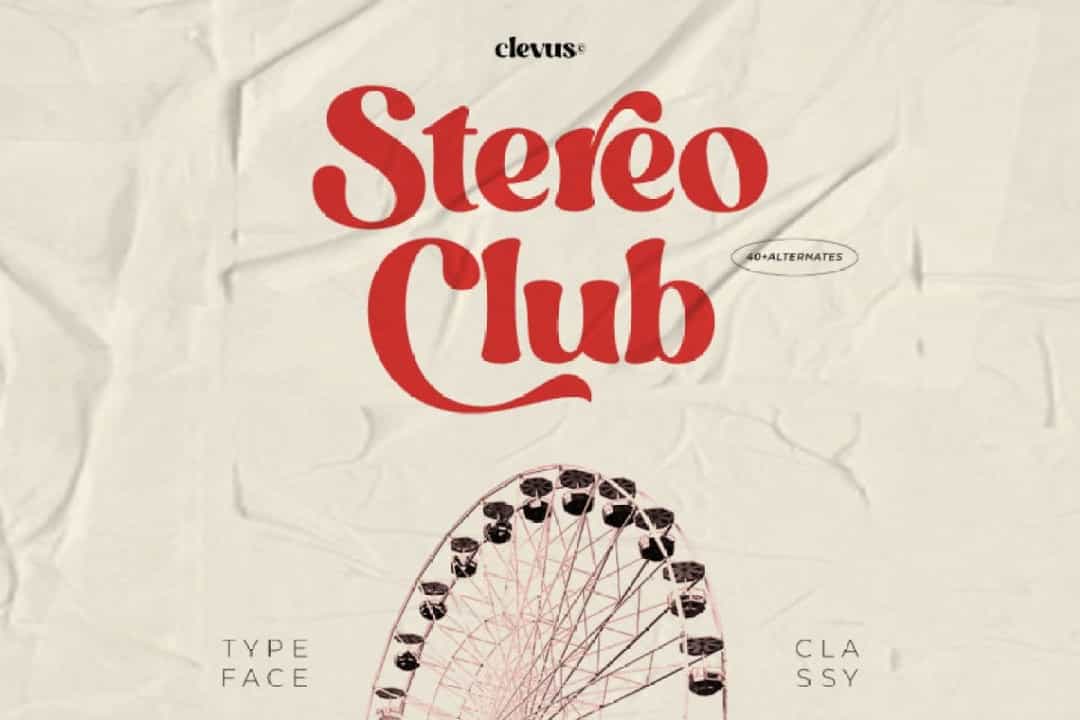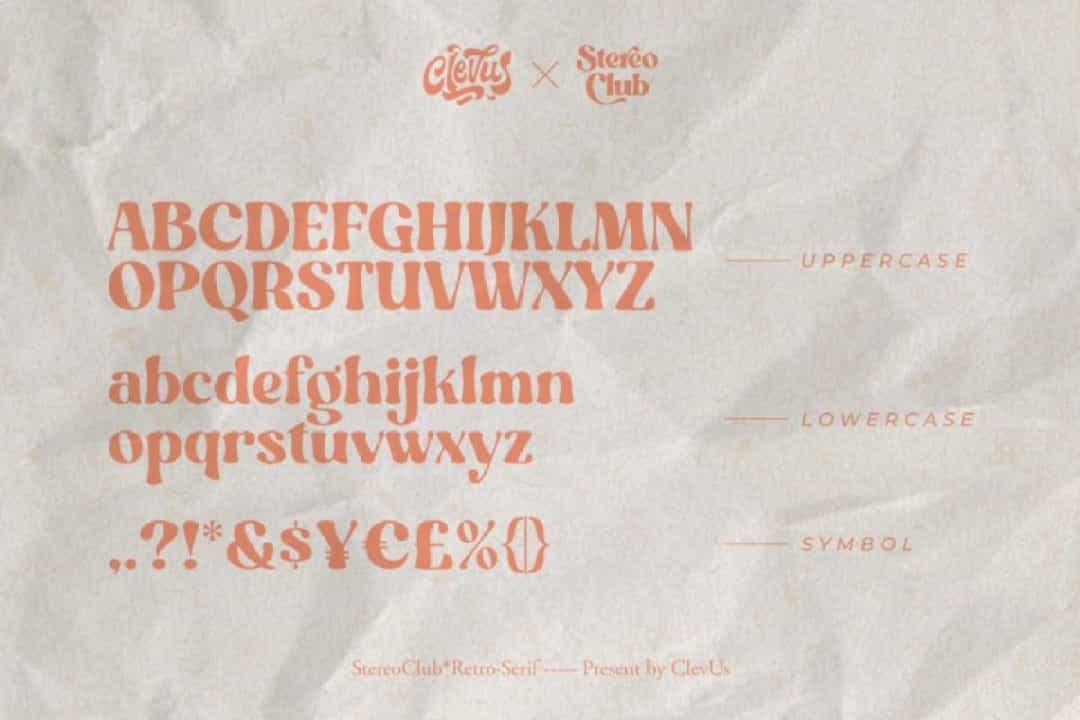
Discover StereoClub Font, part of the Serif collection—a versatile and unique font perfect for adding a personal touch to your projects. Download it for free and enjoy crafting designs with style, from invitations to social media posts. This font is available exclusively for personal use, giving you the freedom to create without limits. Unlock your creativity with StereoClub Font today!
StereoClub comes equipped with multiple OpenType fonts and offers 60 distinct alternatives and ligatures, enabling you to easily create beautiful logos, quotes, blog posts and branding projects as well as magazine images wedding invitations posters etc.